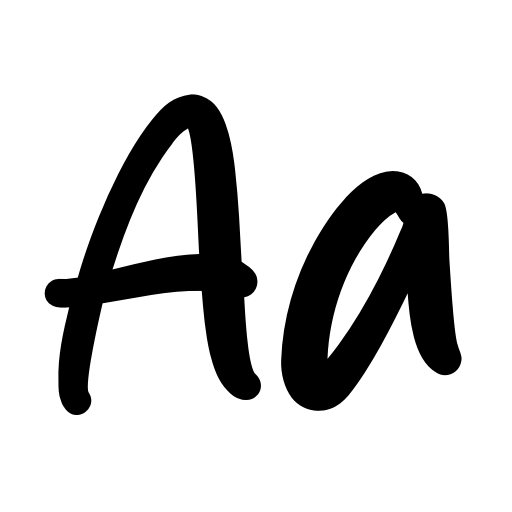
Brillion is a casual, hand-drawn script font that features lively, rounded letterforms with a playful and friendly character. Its moderately loose spacing and smooth, slightly irregular strokes give it an informal, approachable feel, making it perfect for creative, personal, or youthful branding and design projects where warmth and personality are key. This font works well in logos, invitations, social media graphics, and any design that benefits from a handwritten, artistic touch.
Brillion Font
About Brillion Font
| Font family | Brillion Font |
| Designer | Rangga Singgih Subekti |